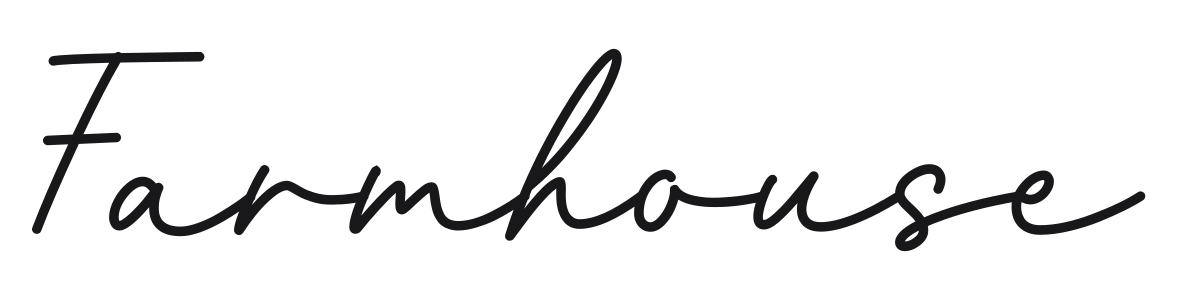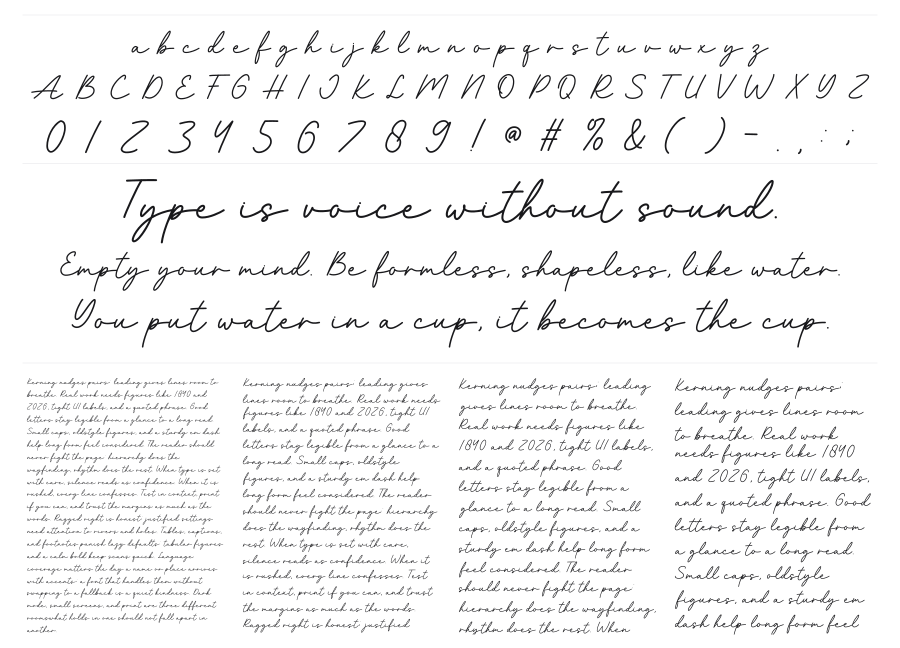
Farmhouse
by Graphix Line Studio
Farmhouse is a flowing casual script with thin, connected strokes and the loose, unhurried quality of relaxed hand lettering. Its continuous baseline, long fluid terminals, and open loops give it an airy, approachable charm that sits comfortably in rustic, artisan, and lifestyle contexts. Works best at large sizes where the delicate stroke weight can breathe.